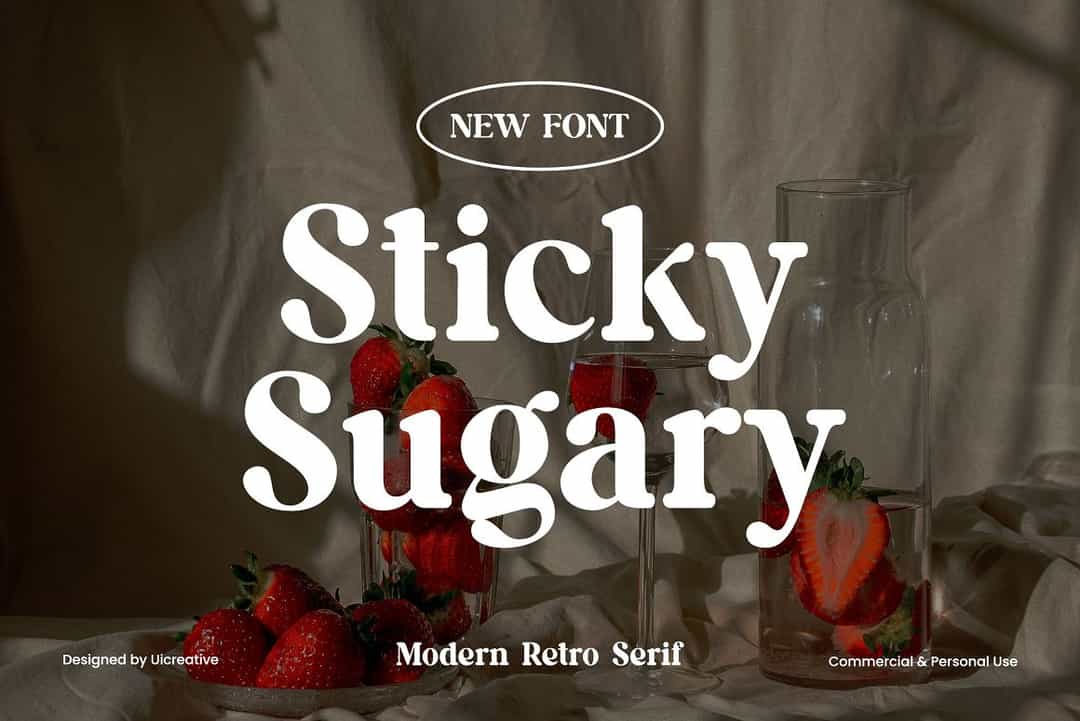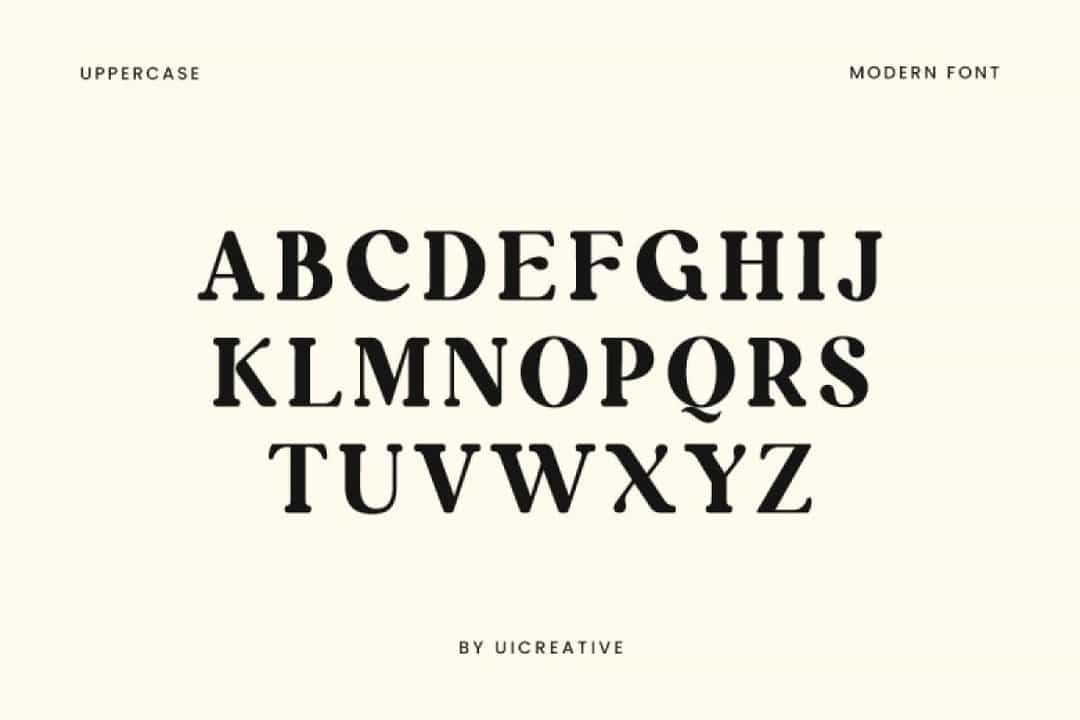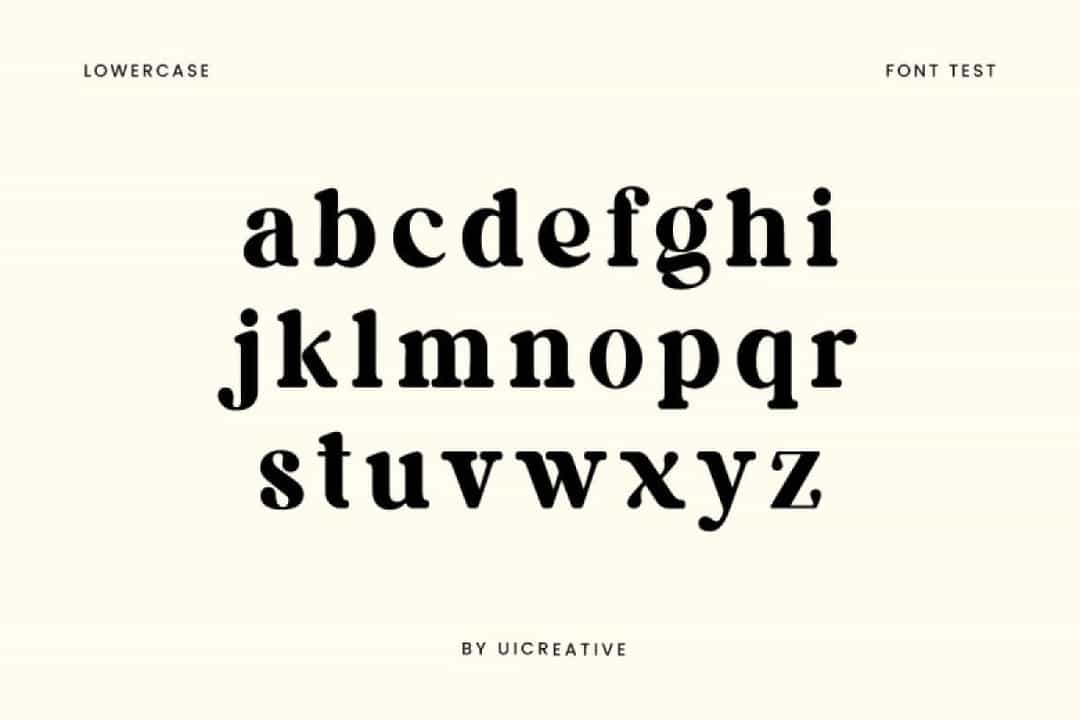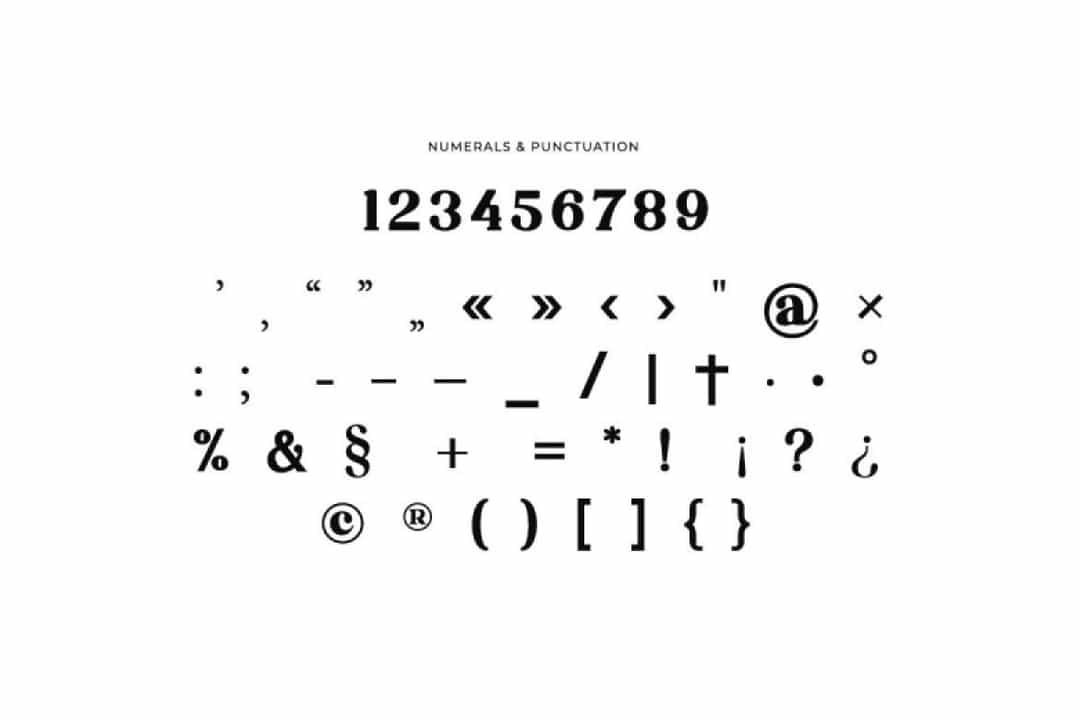
Discover Sticky Sugary Font, part of the Serif Retro collection—a versatile and unique font perfect for adding a personal touch to your projects. Download it for free and enjoy crafting designs with style, from invitations to social media posts. This font is available exclusively for personal use, giving you the freedom to create without limits. Unlock your creativity with Sticky Sugary Font today!
Sticky Sugary is a typeface created by UICreative that features an arresting modern serif look, making it suitable for many designs, such as stationary, signatures, wedding logos and typography quotes on book or magazine covers. In addition, Sticky Sugary can also be found used as headers on websites as well as clothing branding packaging designs as well as fashion related editorial designs that display both feminine and masculine characteristics.